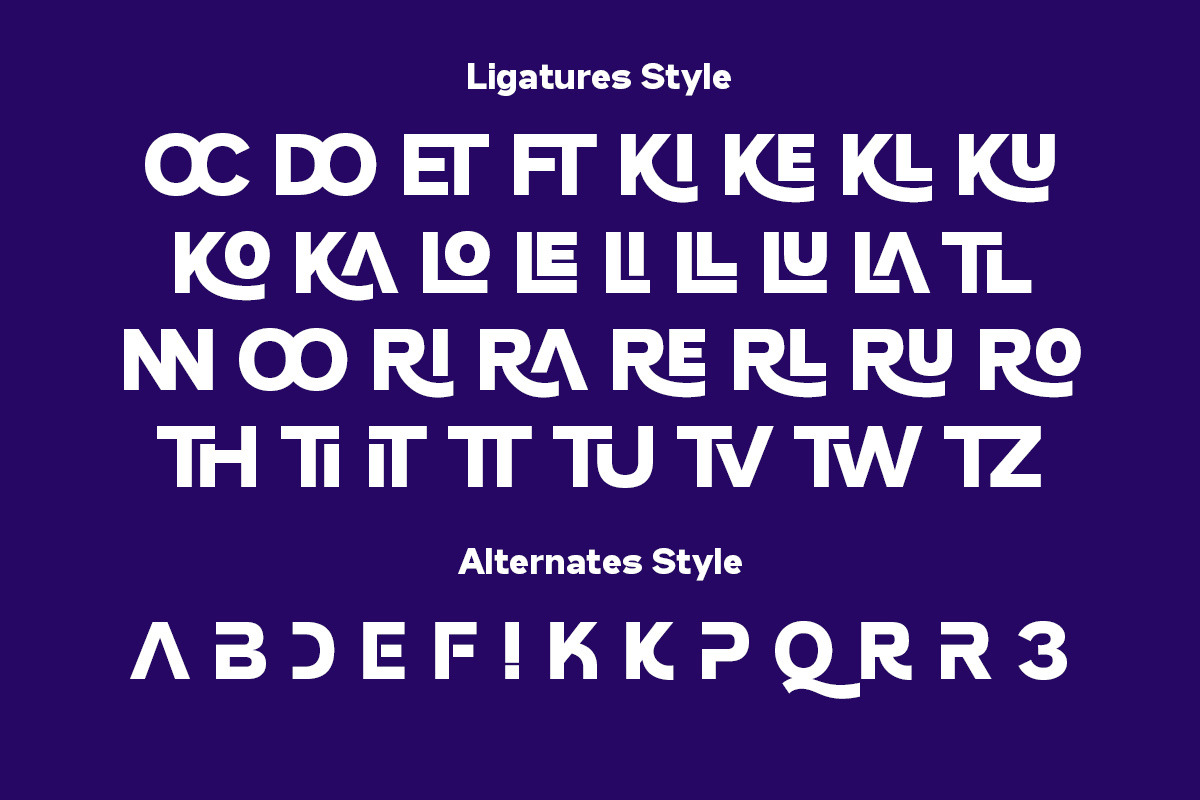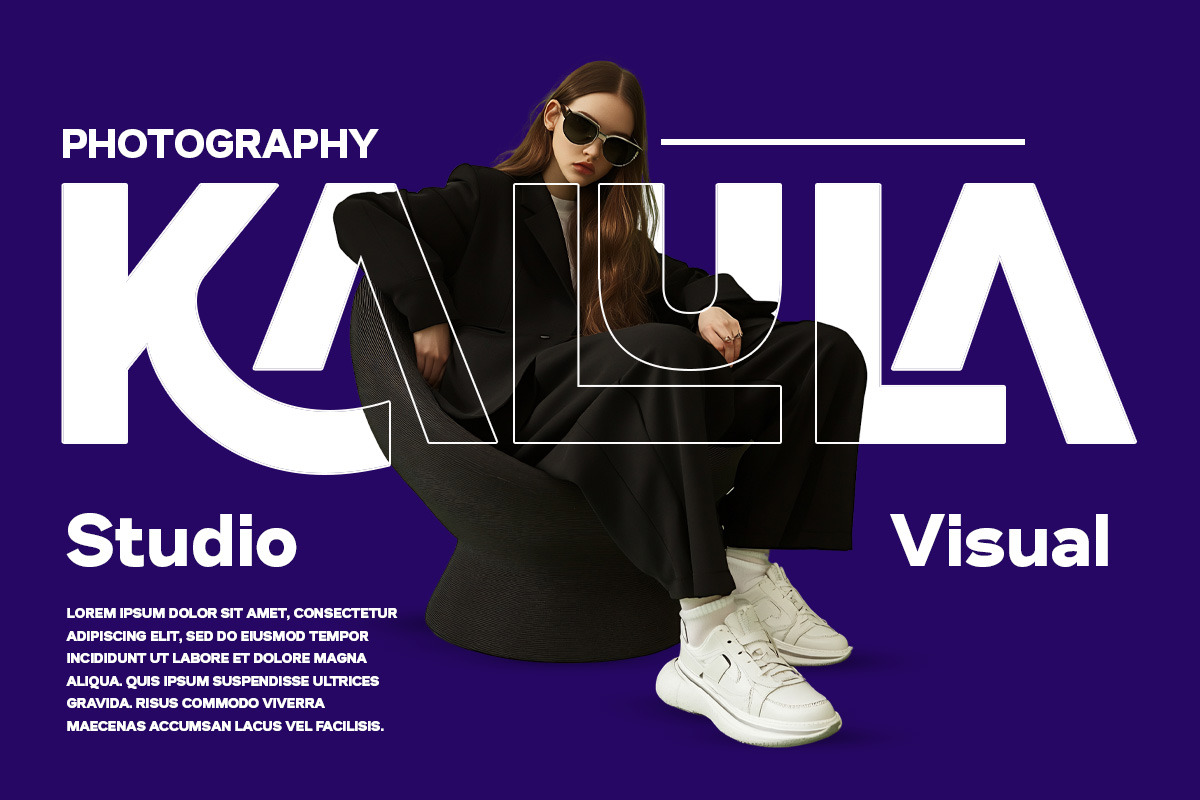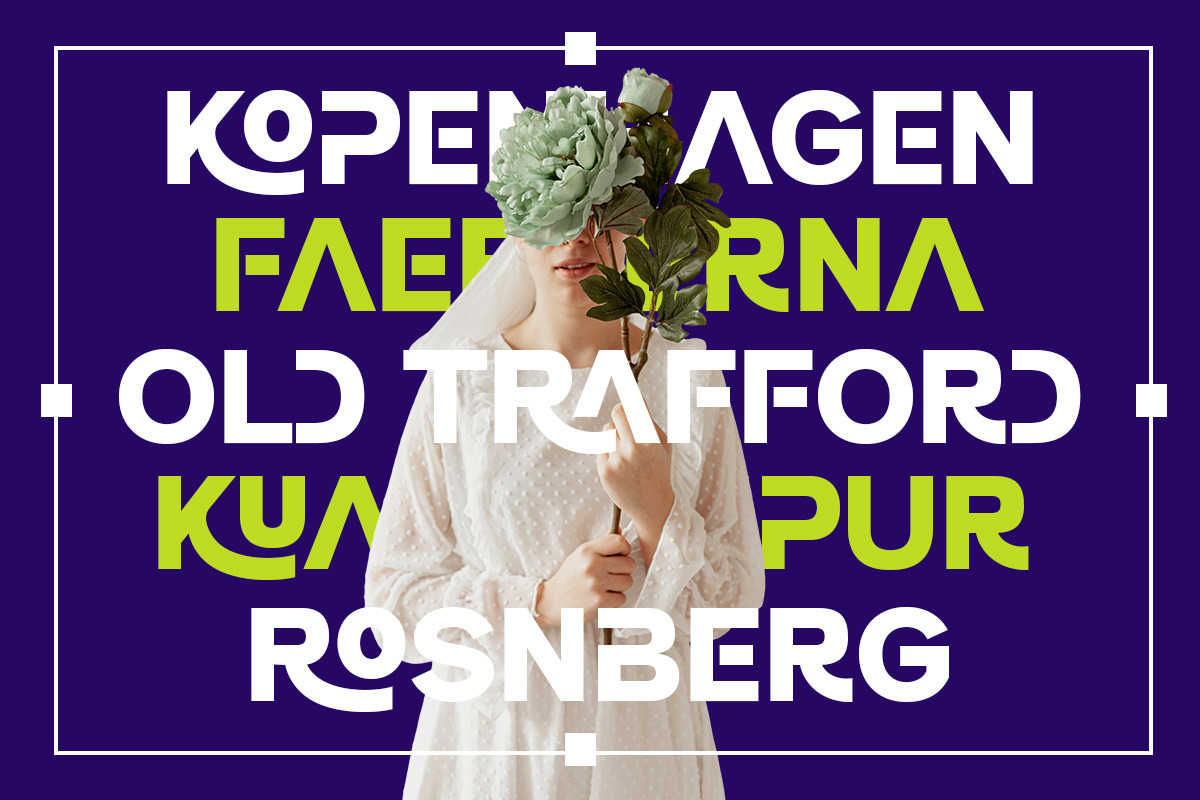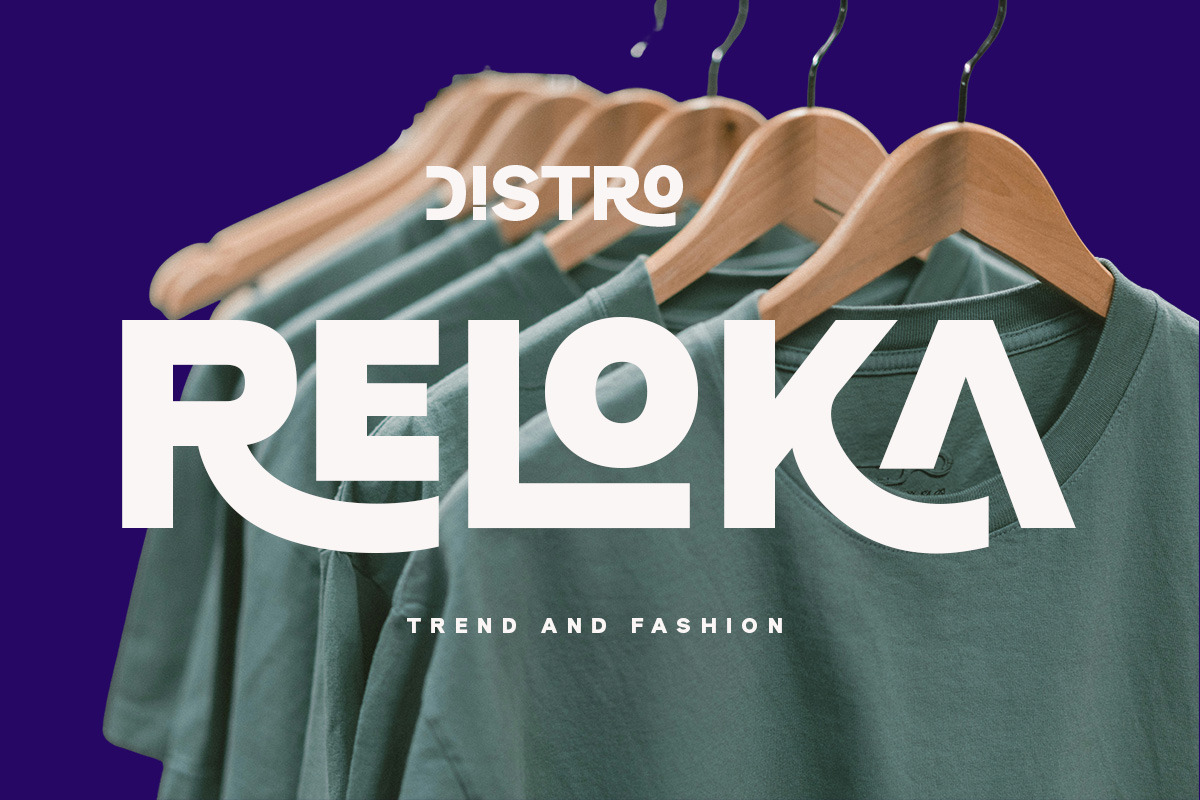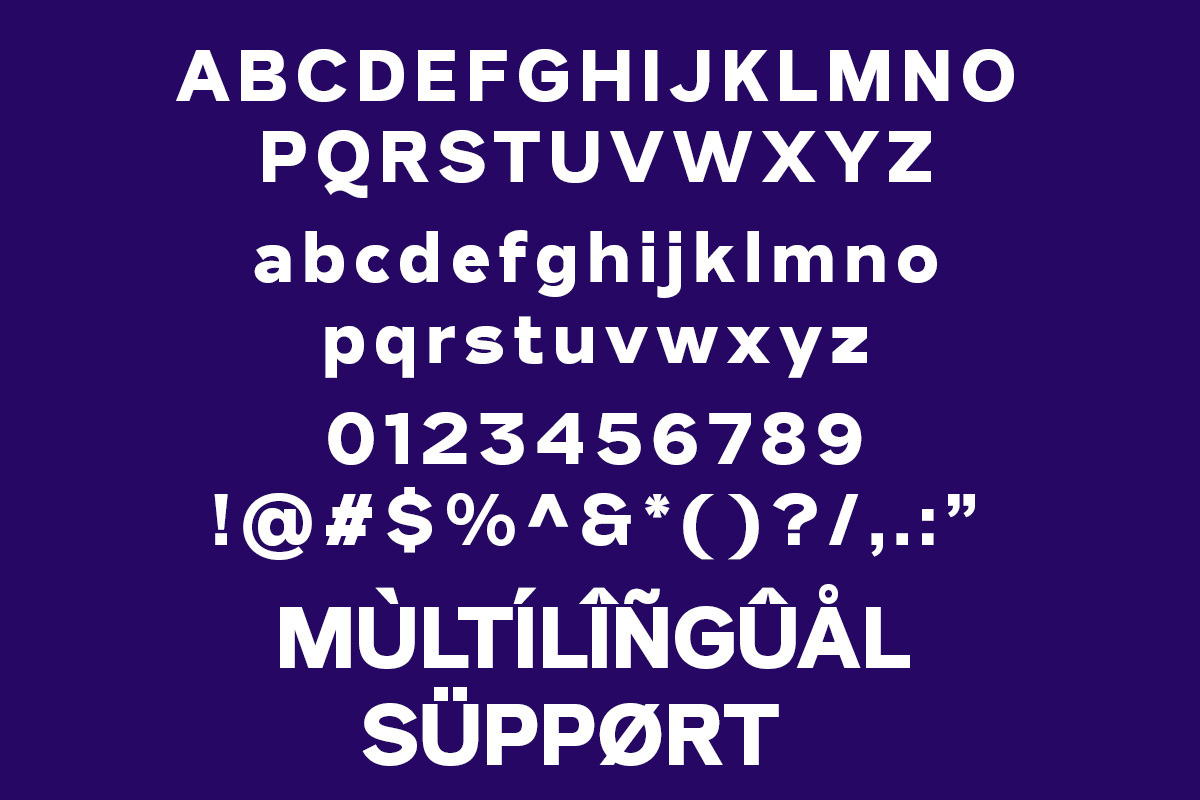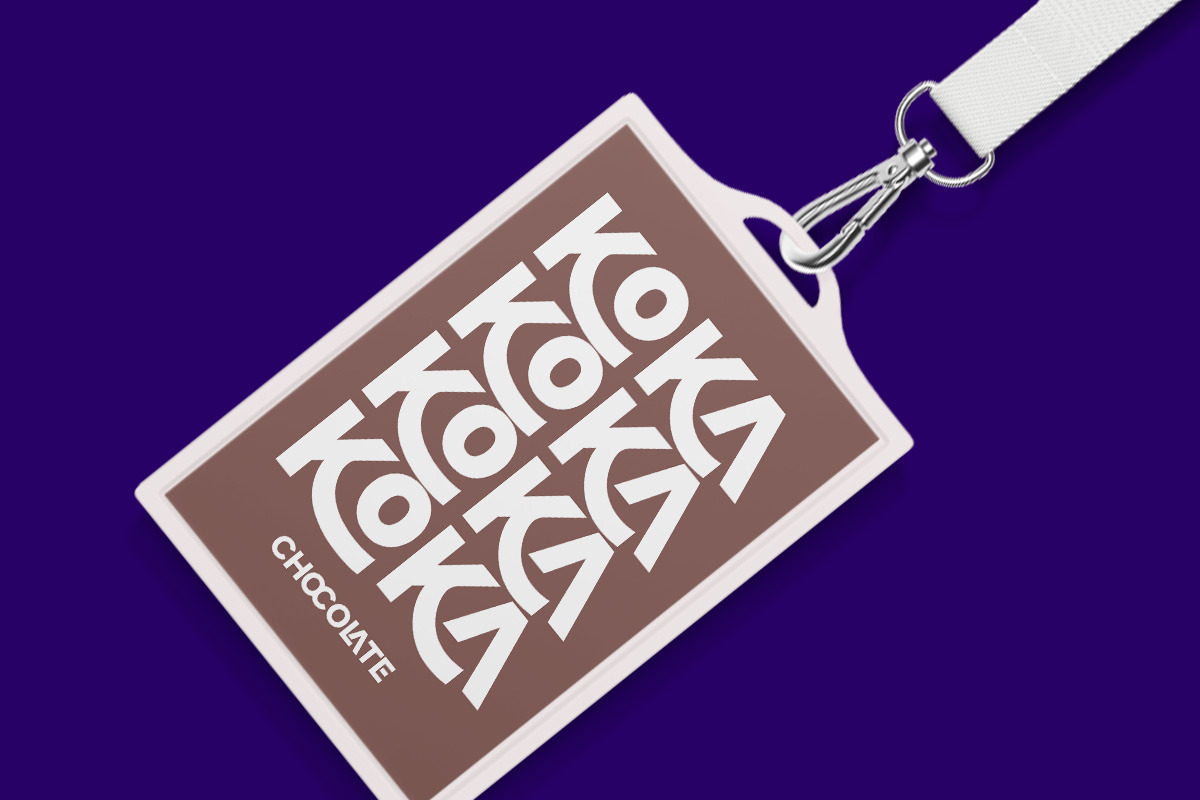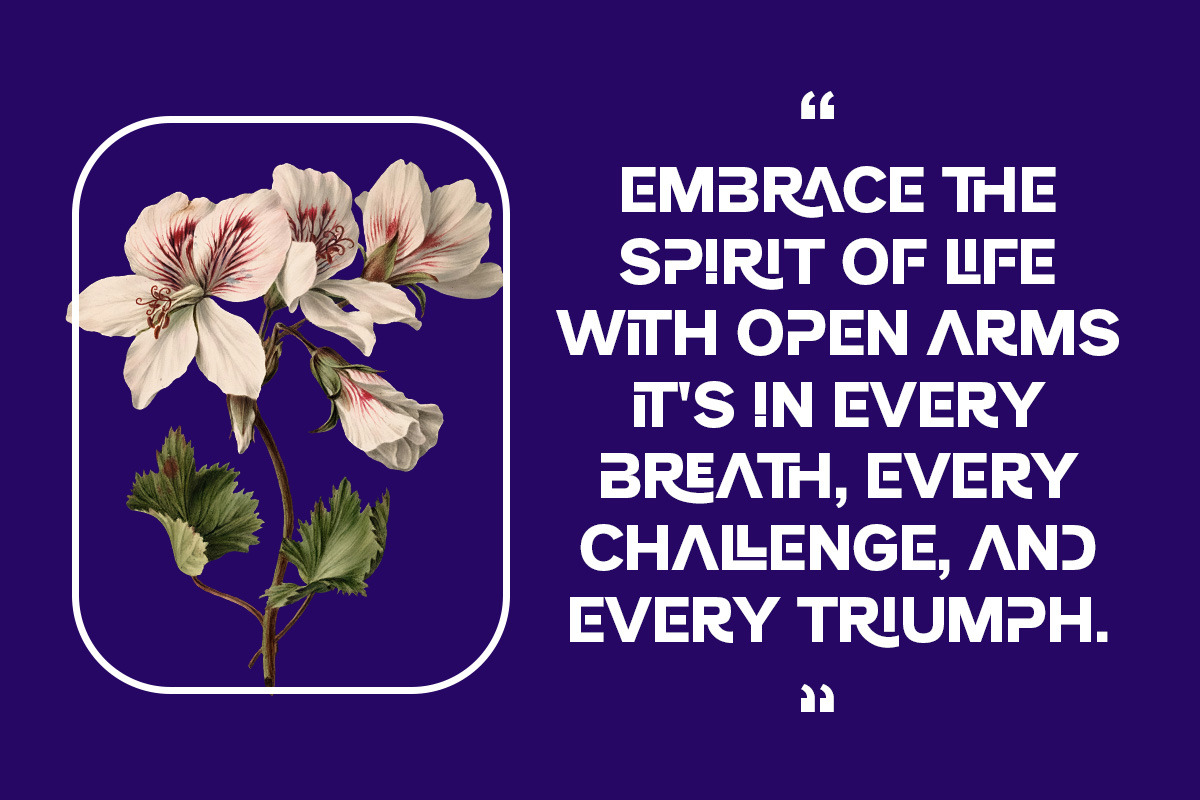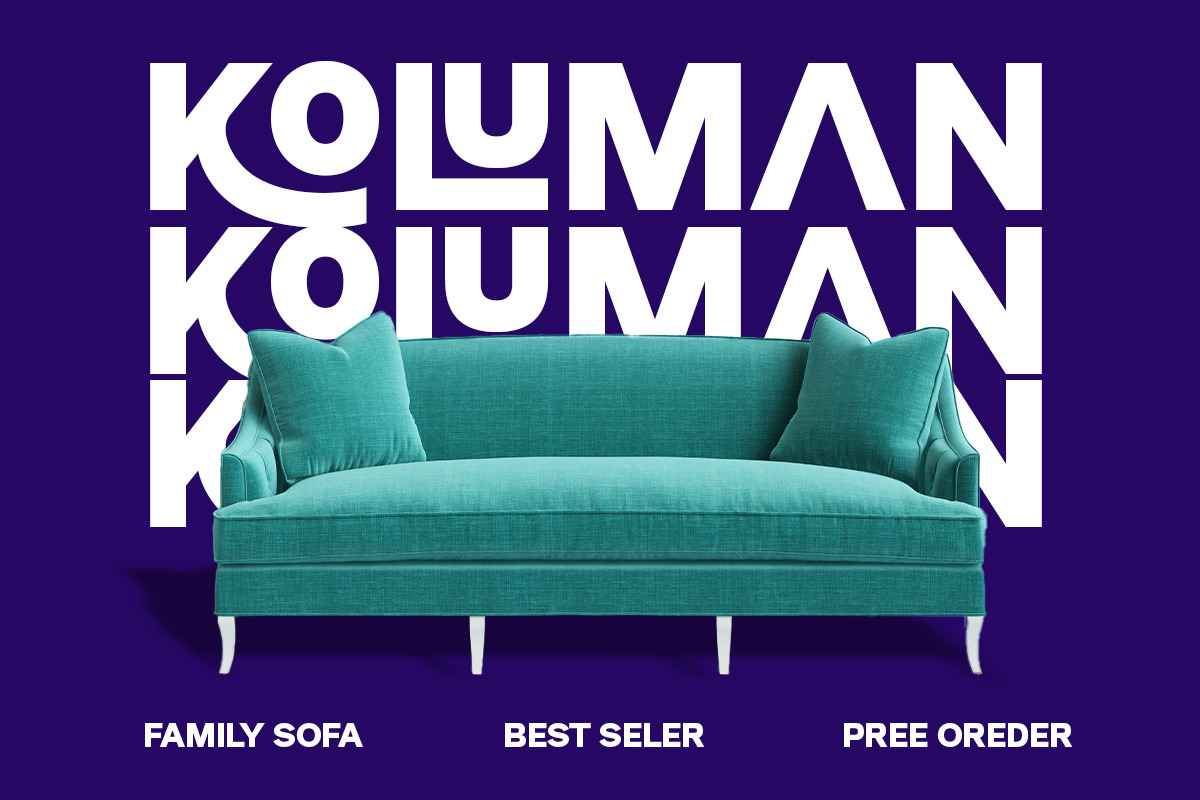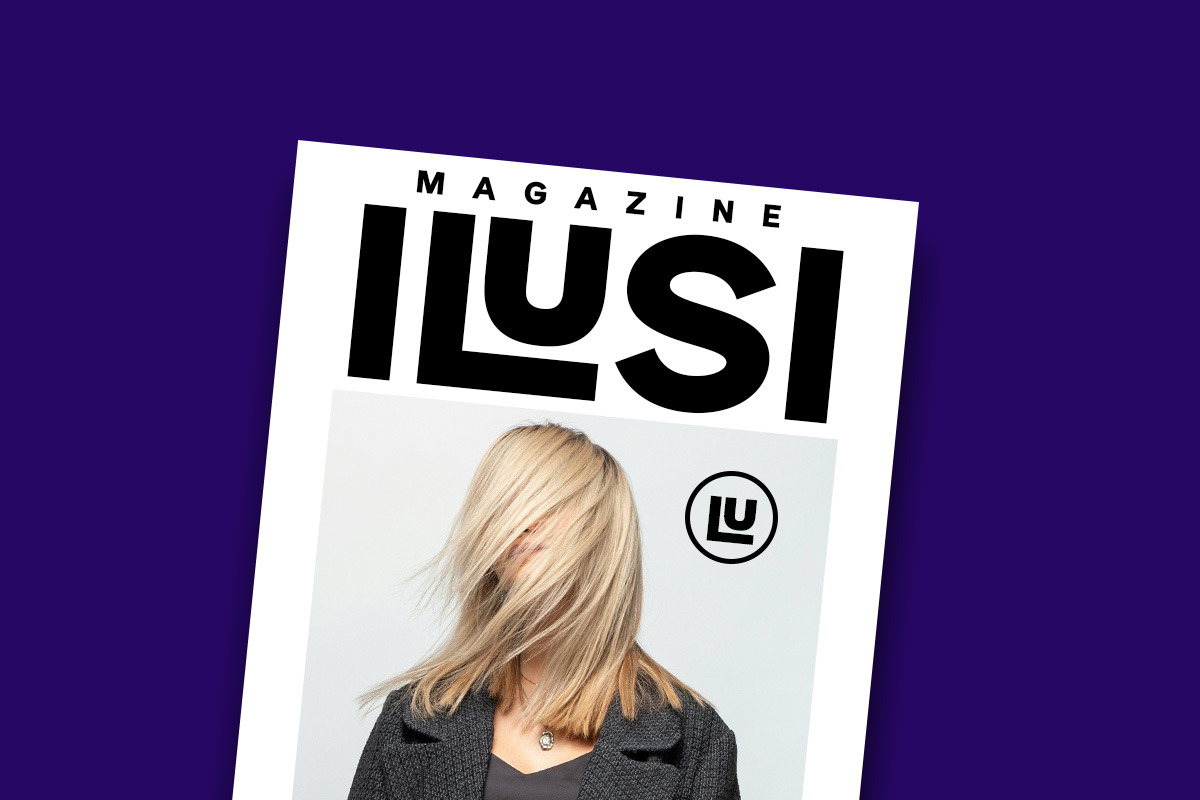
Thineger - Bold Modern Sans Serif
Thineger is a strong, clean sans serif display typeface built for bold branding and attention-grabbing headlines.
Its heavy weight, geometric structure, and sharp terminals make it the ultimate choice for designs that demand power and clarity. From startup branding to futuristic fashion ads, Thineger delivers impactful typography with modern edge and commercial energy.
Built to stand out. Perfect for disruption.
- Startup and tech branding
- Editorial magazine titles
- YouTube thumbnails
- Display headline posters
- Urban apparel designs
- Music and entertainment graphics
Thineger brings heavy attitude to clean sans serif tradition.